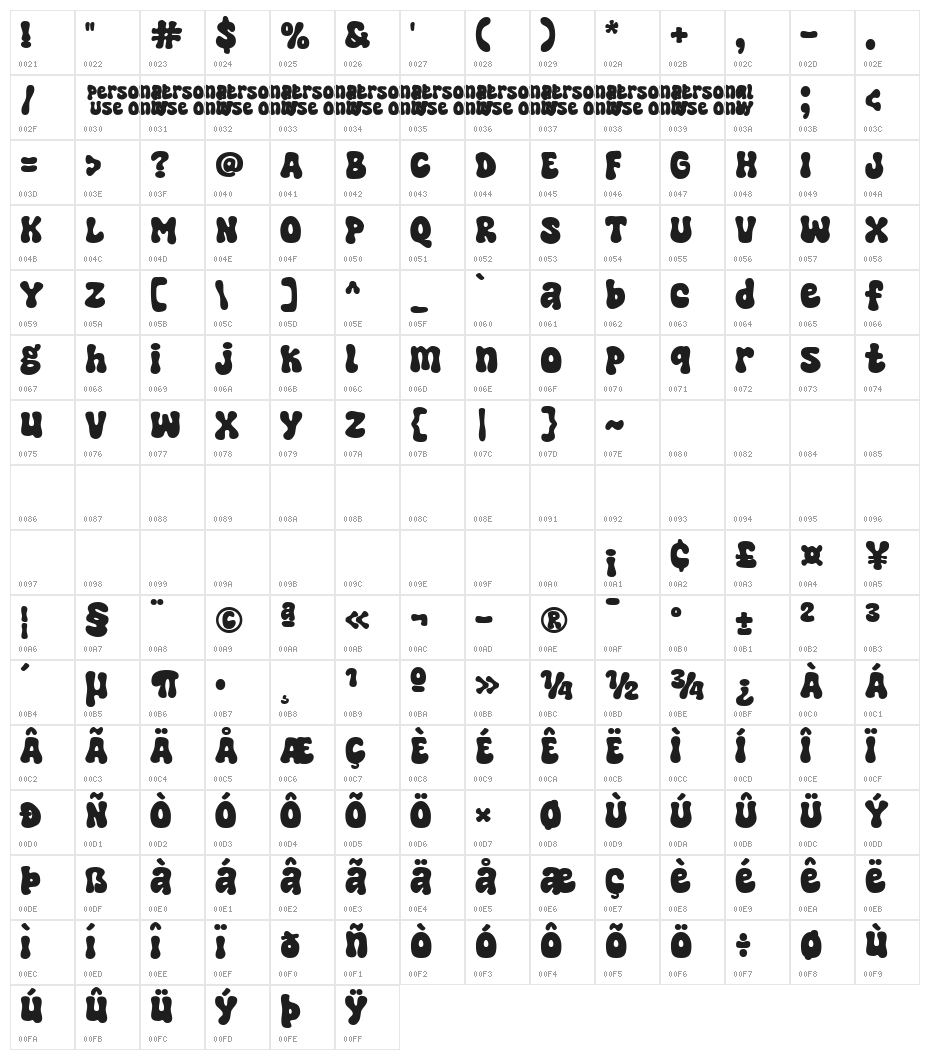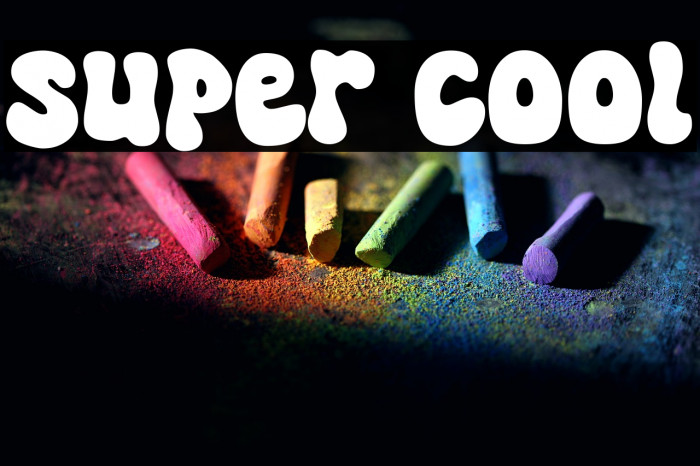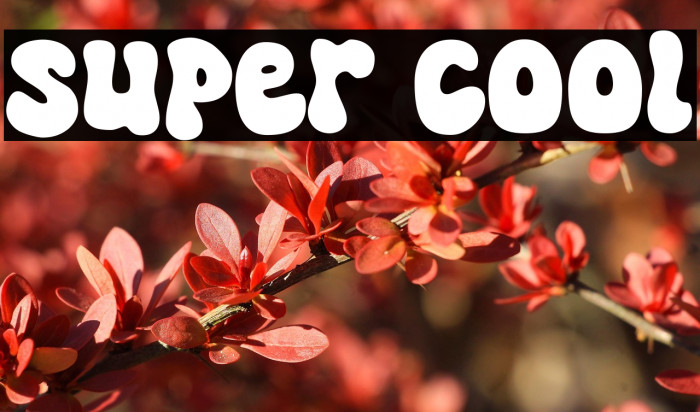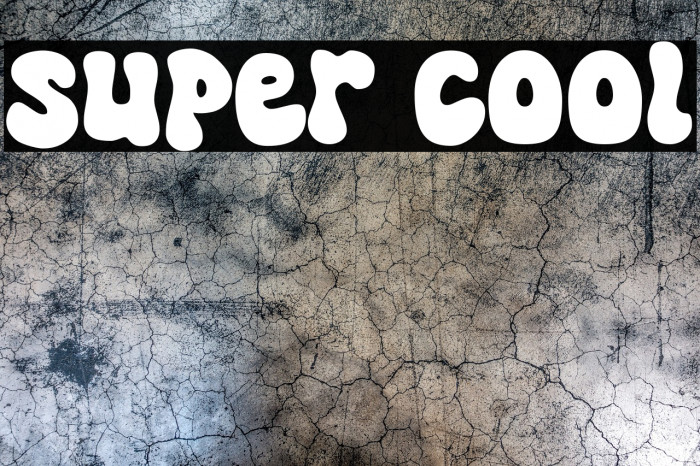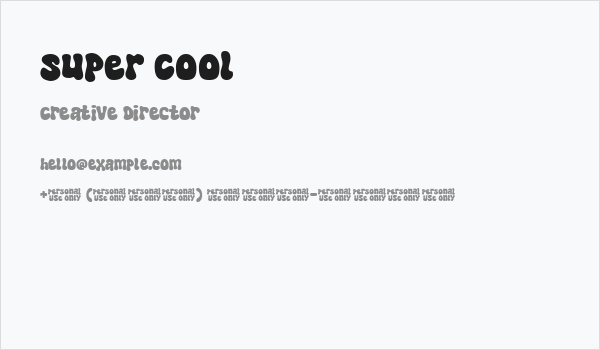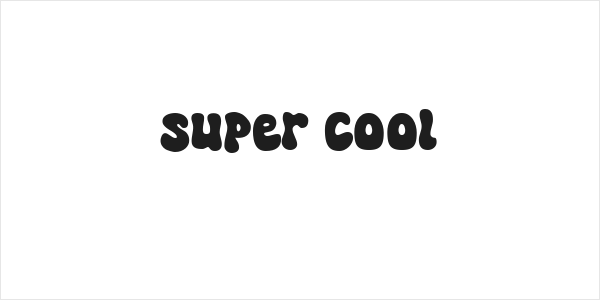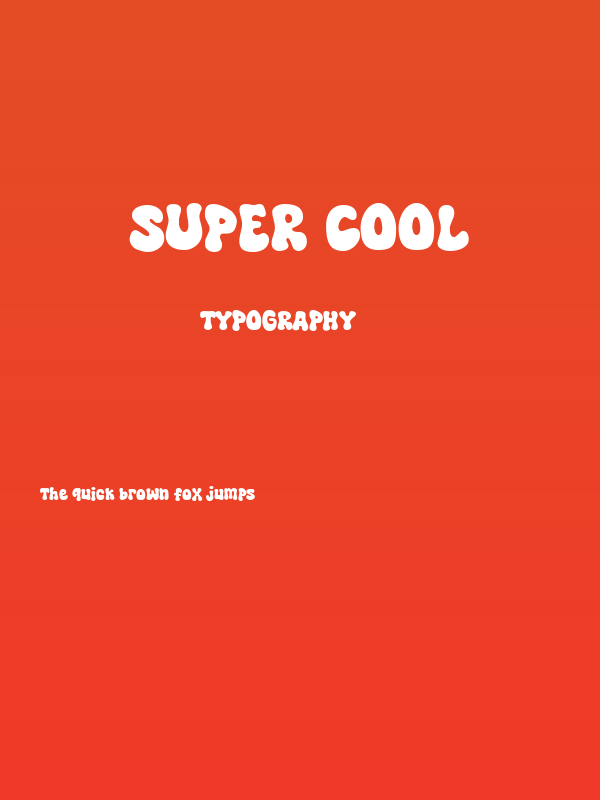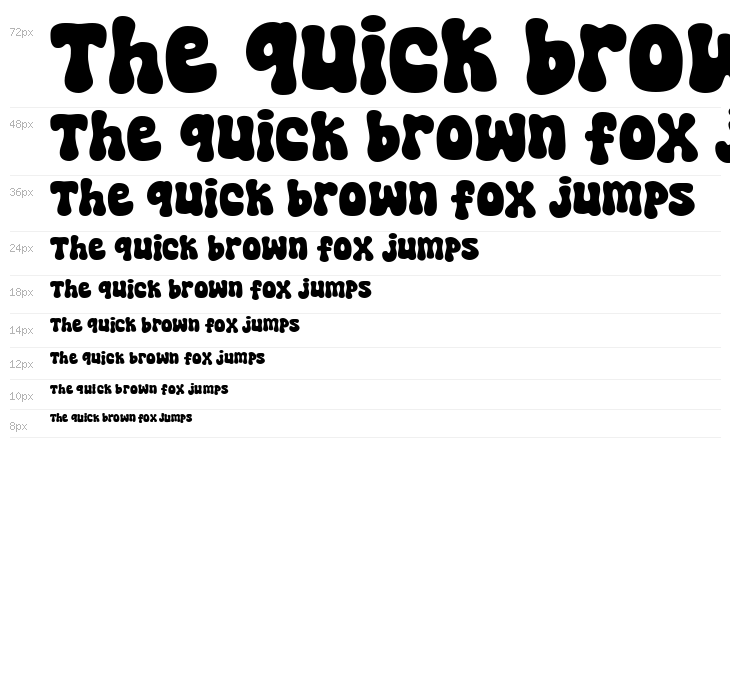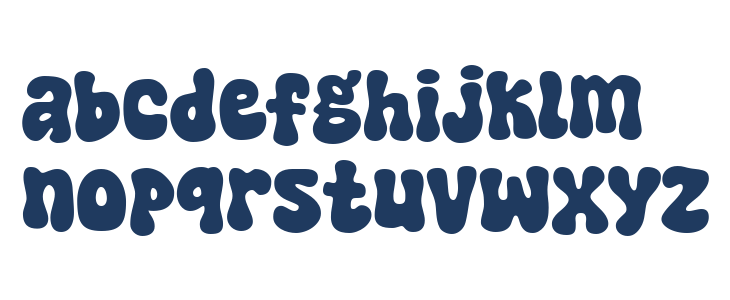
Super Cool Font
Super Cool Description
This playful and bold font features thick, rounded characters that exude a sense of fun and creativity. The letters are heavily weighted with a bubbly appearance, making them stand out with a strong visual impact. The font's unique style is characterized by its soft, curvy edges and uniform thickness, giving it a cohesive and harmonious look. It is ideal for projects that require a touch of whimsy and boldness, such as children's books, playful branding, or eye-catching headlines. The font maintains a consistent width and spacing, ensuring readability despite its decorative nature.
| Overall Style | Playful, Fun, Creative |
| Proposed Projects | Ideal for children's books, playful branding, eye-catching headlines, and creative posters. |